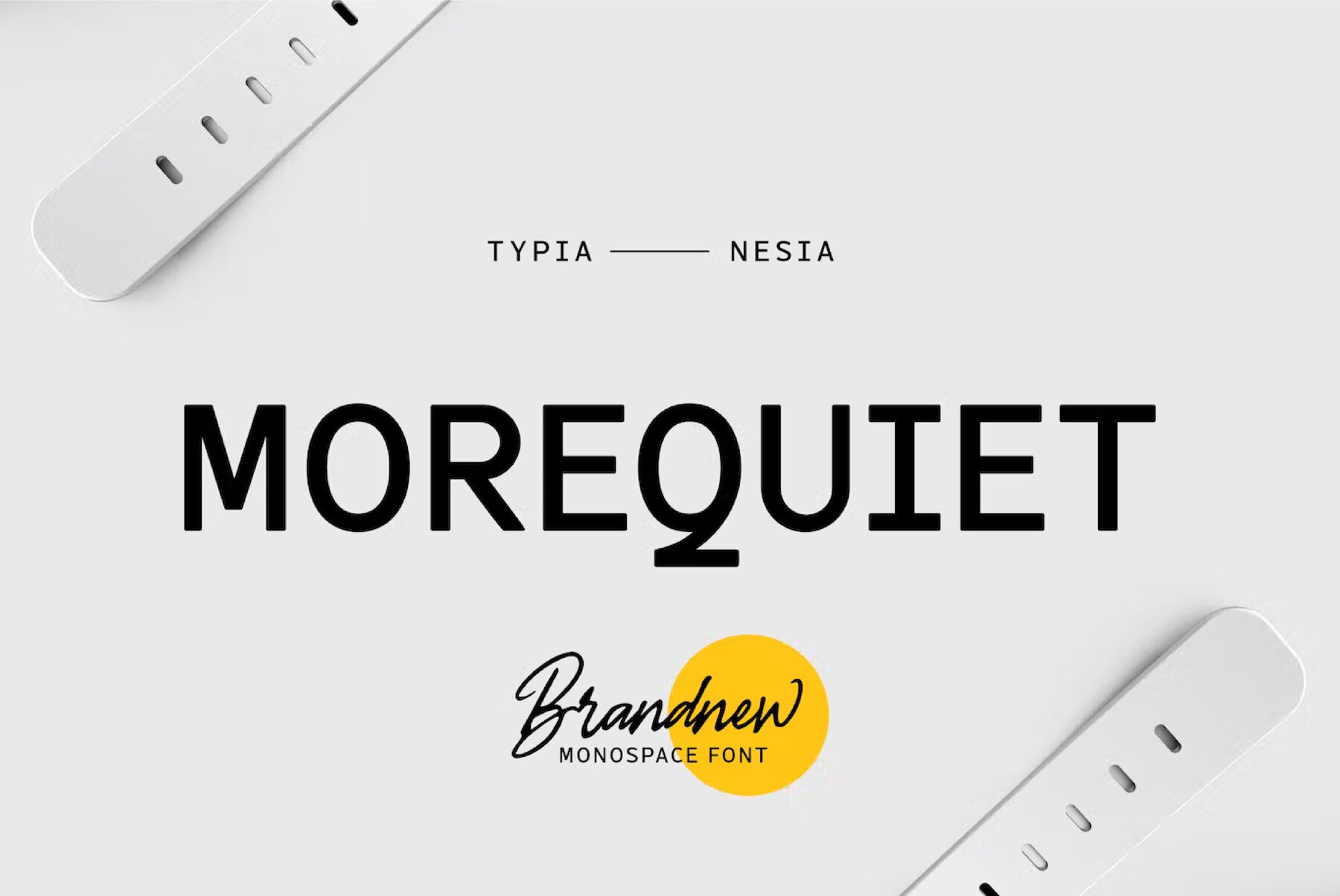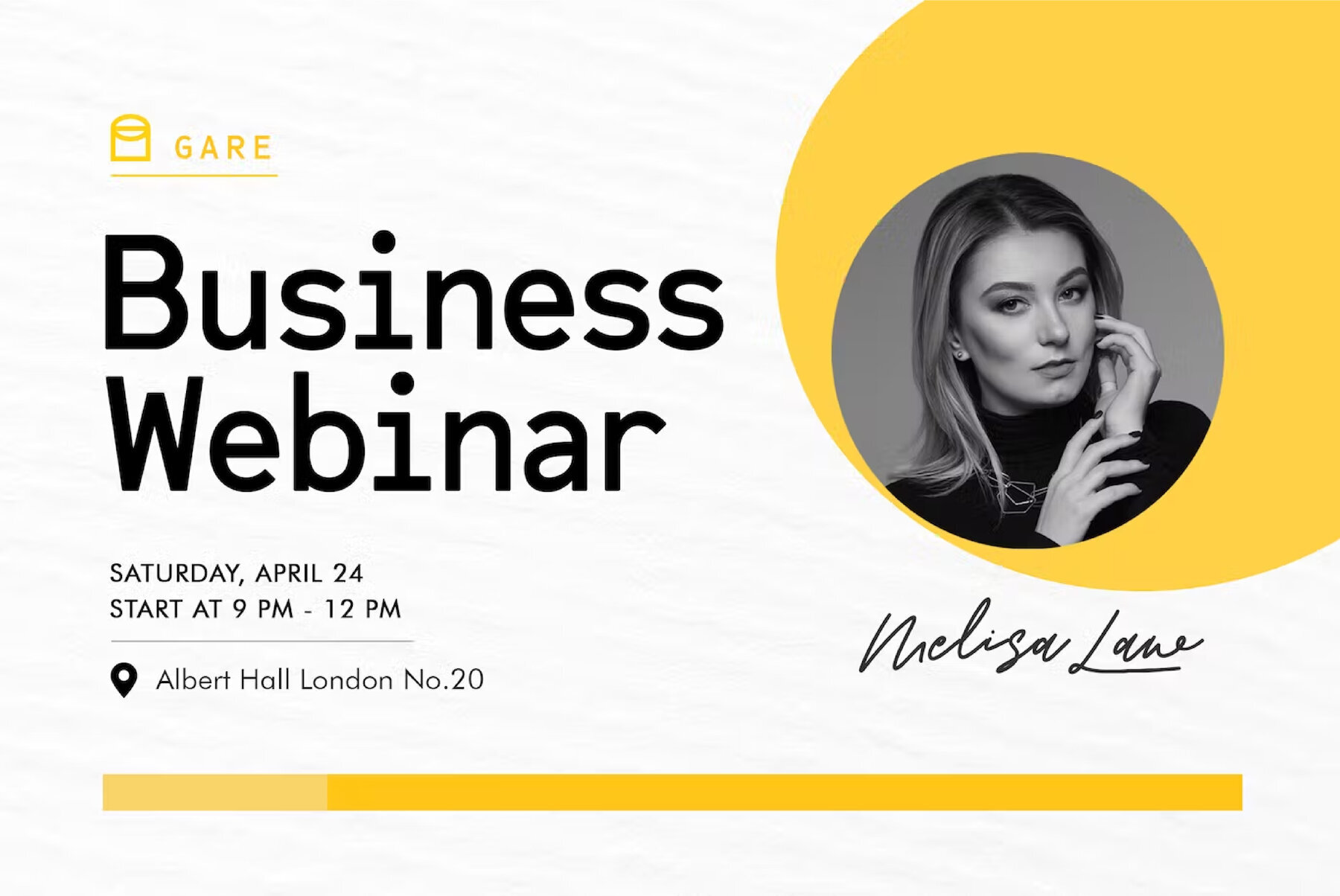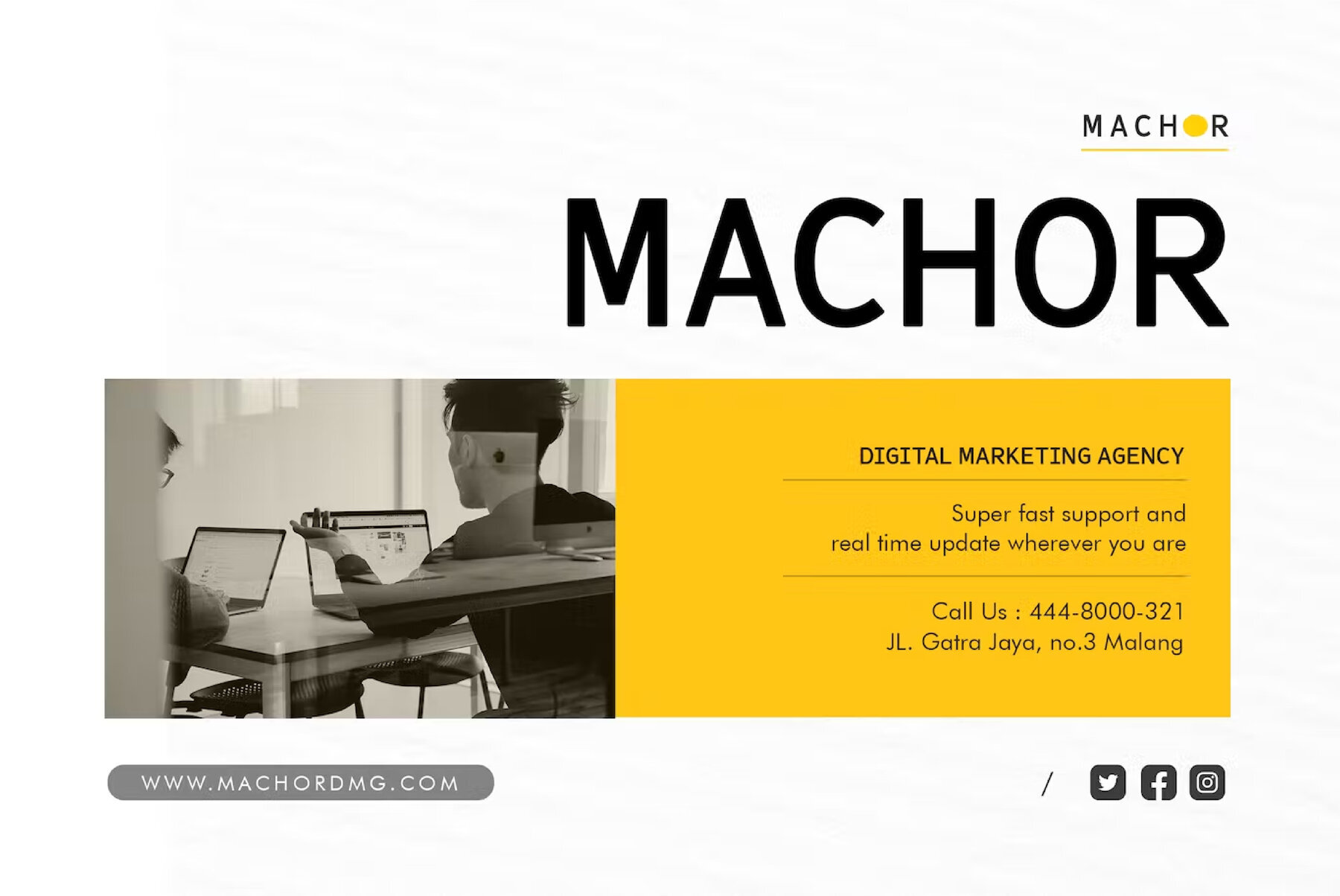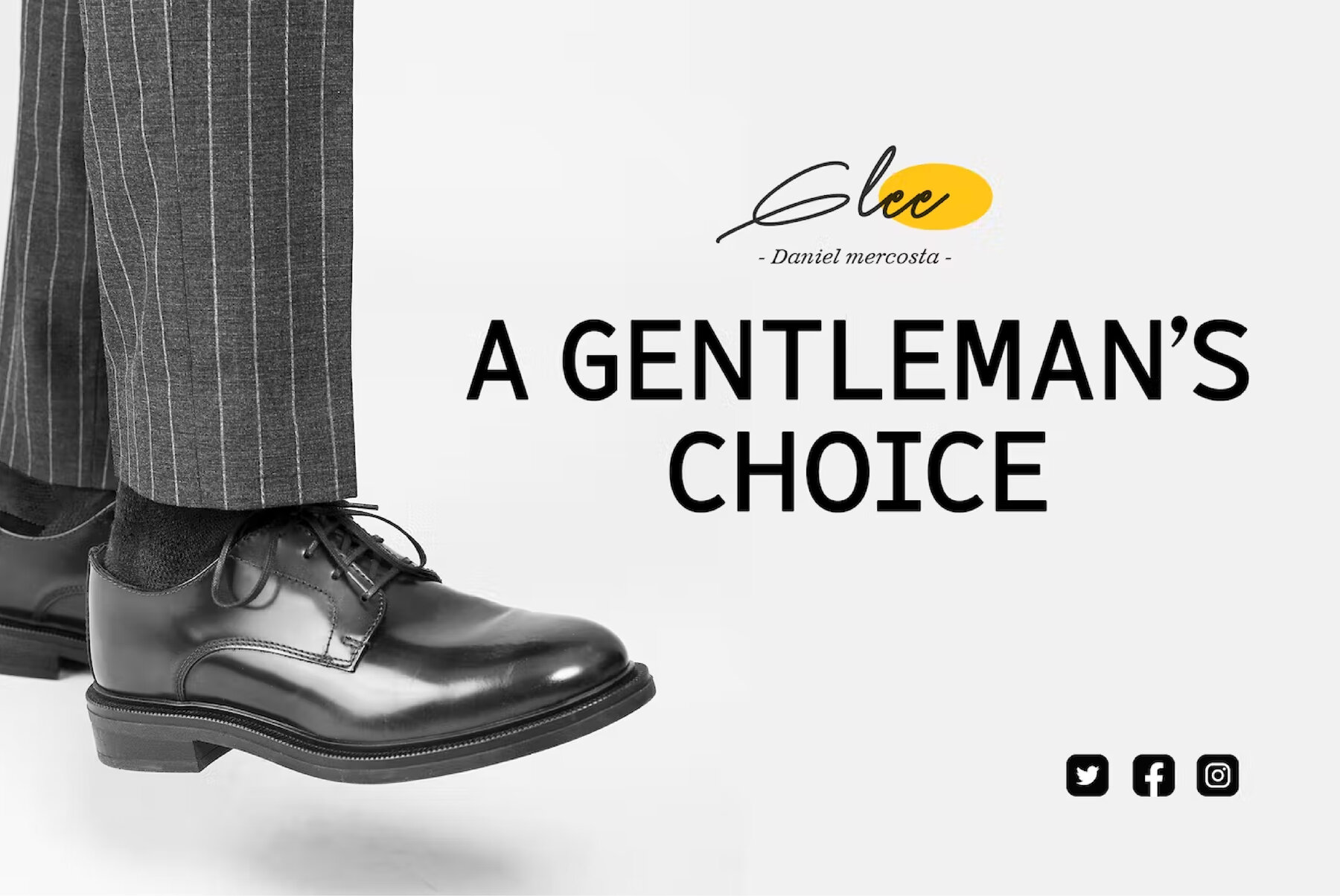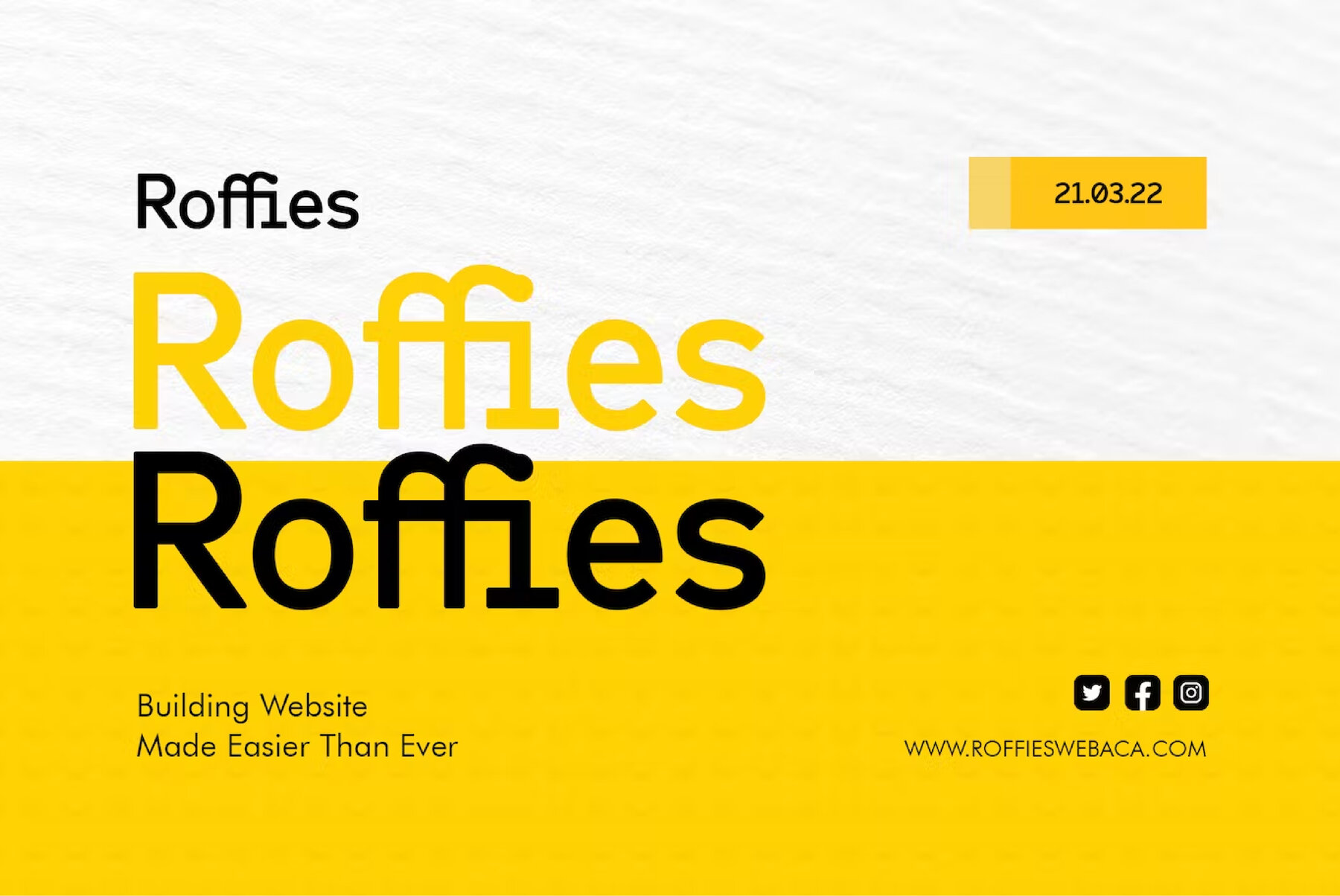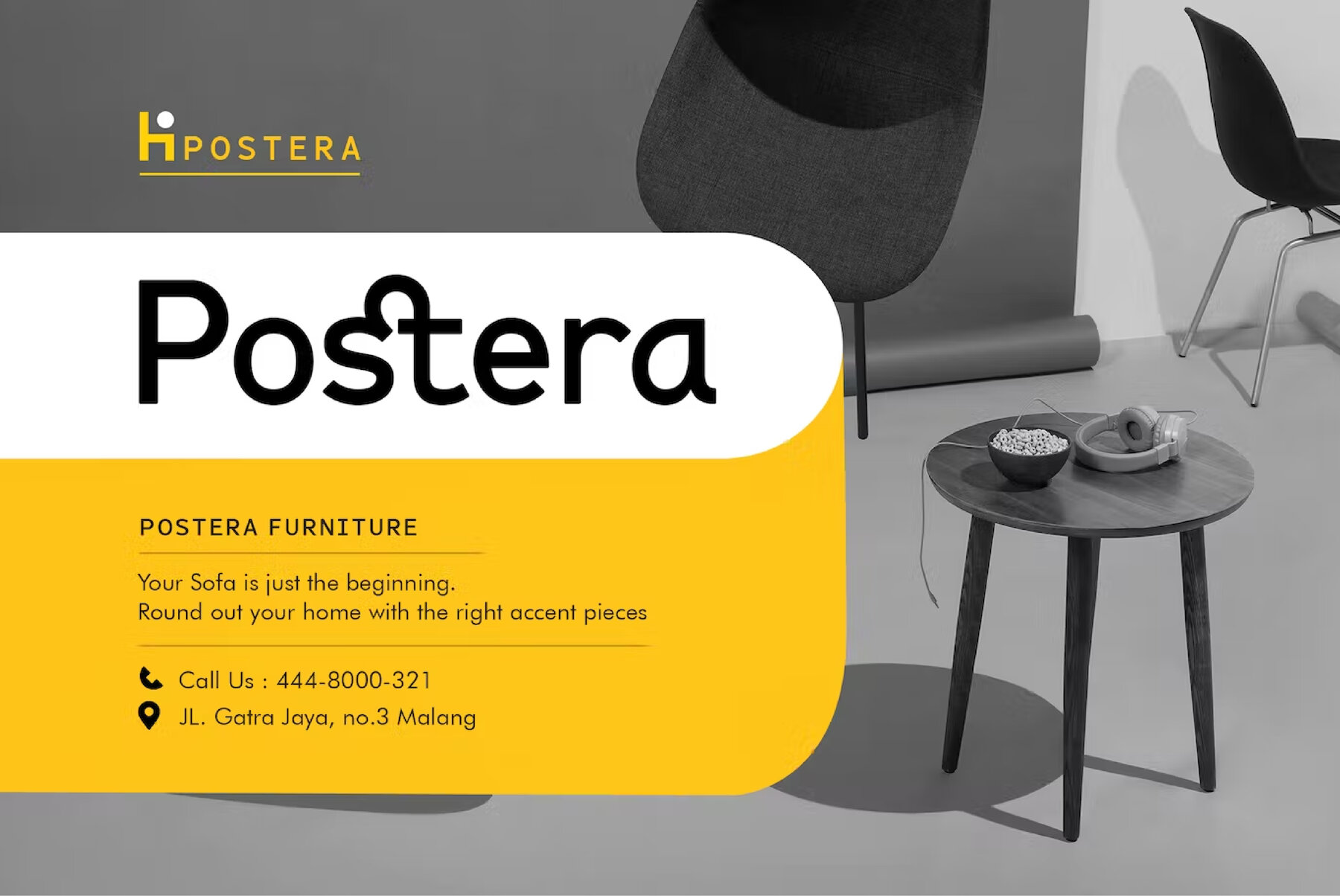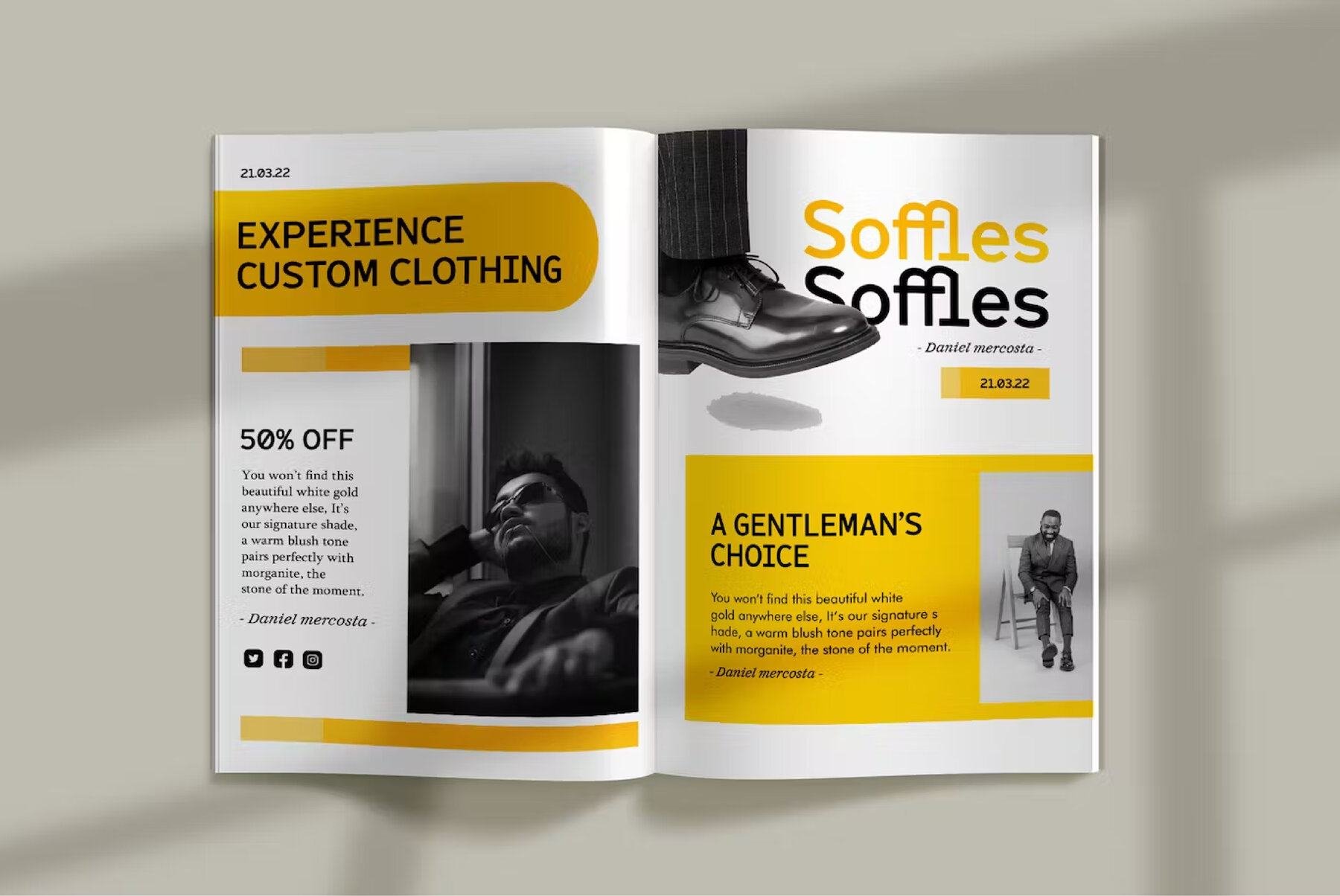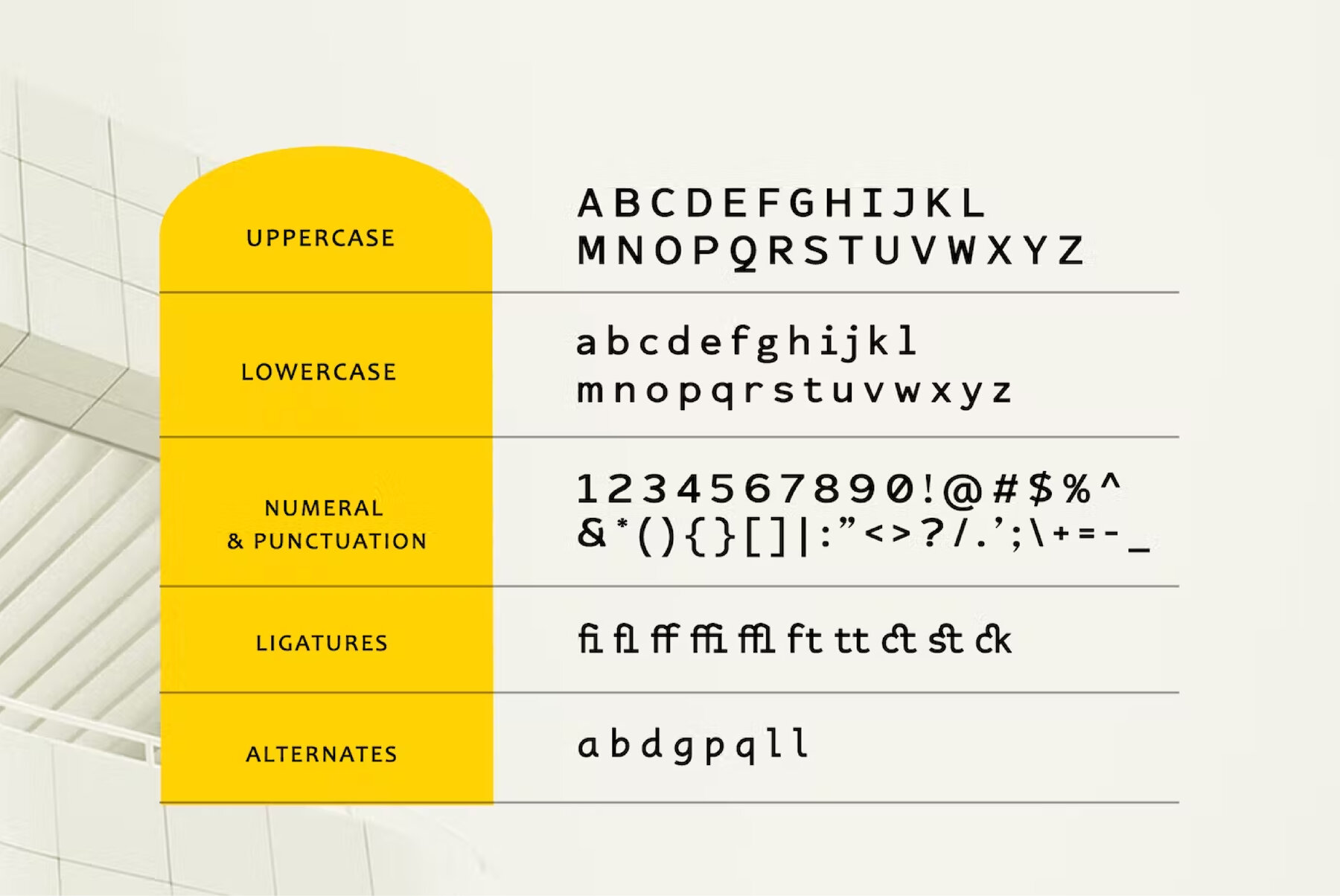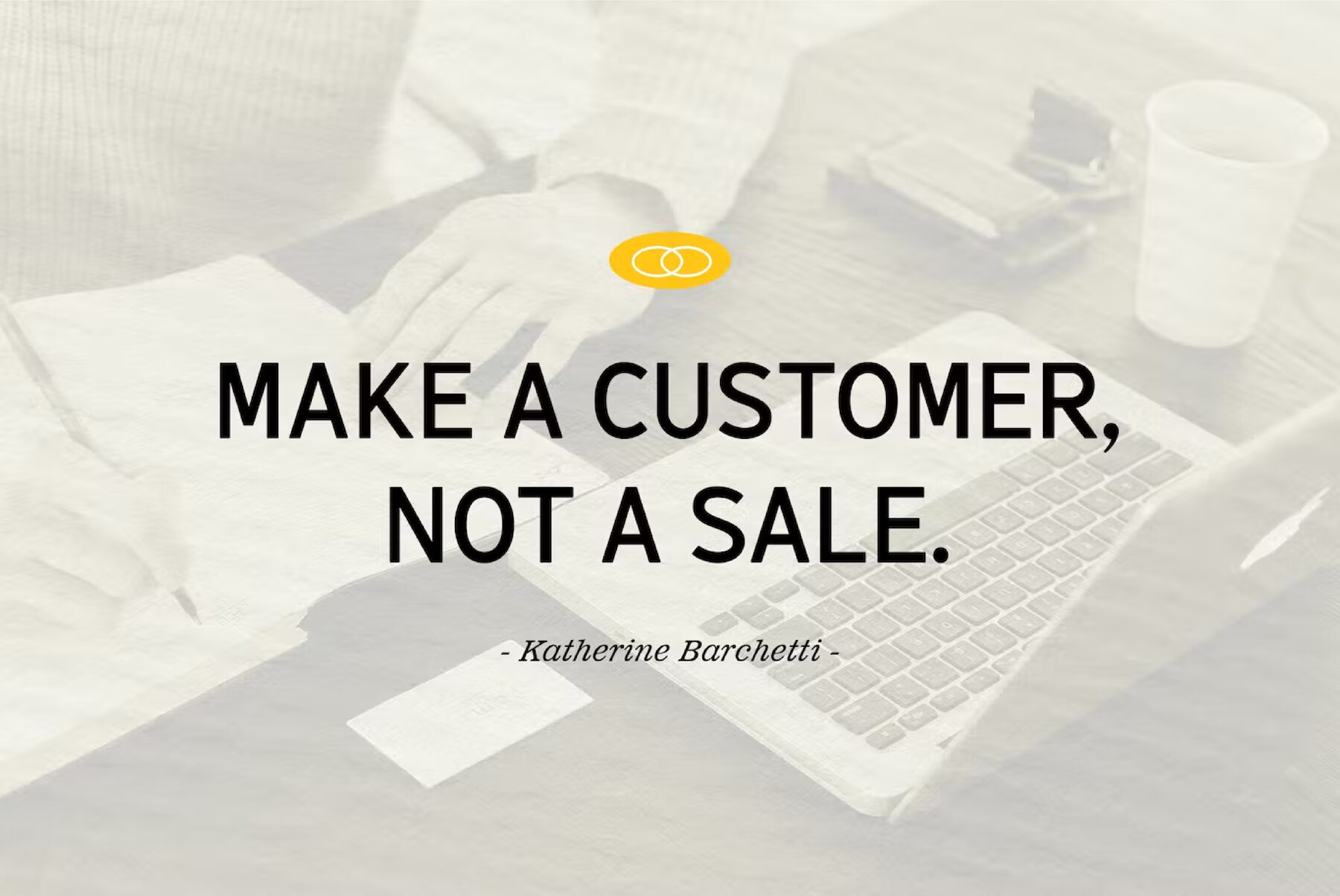
Morequiet Font
Morequiet Regular
Get the most out of your upcoming projects with Morequiet Monospace Sans Font. With a classic style suited to logo and branding, editorial design, magazine layouts, fashion promotional materials and more - this font is perfect for any project requiring sophistication without sacrificing creativity. Whether you're designing book covers or tickets to special events; make sure it has elegance built-in with Morequiet's timeless sans typeface!